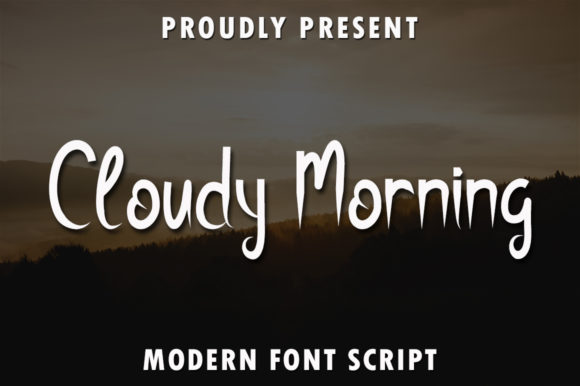
Journey into the realm of elegance and sophistication with Cloudy Morning Font, a script font that dances across the digital canvas with grace and charm. Each letter, meticulously crafted by the expert hands at rangkaiaksara, exudes a timeless beauty that transcends fleeting trends. Whether you're a seasoned designer or just starting your creative journey, Cloudy Morning Font is your perfect companion, ready to elevate your projects to new heights of visual appeal.
Immerse yourself in a world of endless possibilities, where Cloudy Morning Font becomes your trusty companion in crafting captivating logos, alluring social media posts, breathtaking invitations, and stunning website designs. Its balanced and varied strokes, neither too thin nor too thick, harmonize perfectly to create a visual symphony that captivates the eyes and ignites the imagination. Let your designs bloom with the delicate touch of Cloudy Morning Font, leaving a lasting impression that lingers in the minds of your audience.
Unleash your creativity and explore the boundless potential of Cloudy Morning Font, a script font that adapts effortlessly to a myriad of design styles. From the classic elegance of vintage aesthetics to the bold modernity of contemporary designs, Cloudy Morning Font seamlessly blends in, adding a touch of sophistication and charm to every project. Its versatility knows no bounds, allowing you to effortlessly create designs that resonate with your target audience, leaving them spellbound by your artistic prowess.
With Cloudy Morning Font as your chosen instrument, you'll discover a newfound joy in the art of design. Its intuitive flow and effortless readability make it a dream to work with, allowing you to pour your heart and soul into your creations without hindrance. Experience the sheer delight of watching your designs come to life, infused with the timeless beauty of Cloudy Morning Font. Let your imagination soar and embark on a creative adventure that knows no limits.